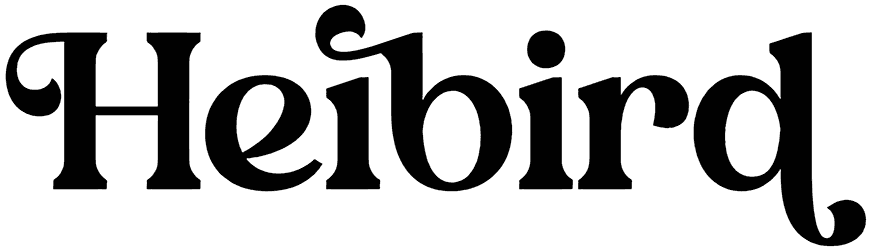
Heibird Font
With a chic and classic visual of this unique ligature serif font, your design can easily get lots of attention. The perfect cover of characters is going to give you a great chance to adorn any text with no limitations. Heibird font can make the words of a fashion business card or other layouts more confident.